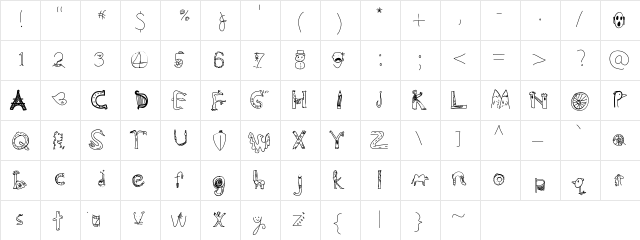
MyWorld Medium Free Font
MyWorld Medium
Design Context for MyWorld
MyWorld is a composed and adaptable typeface that performs quietly and consistently across a wide range of design contexts.